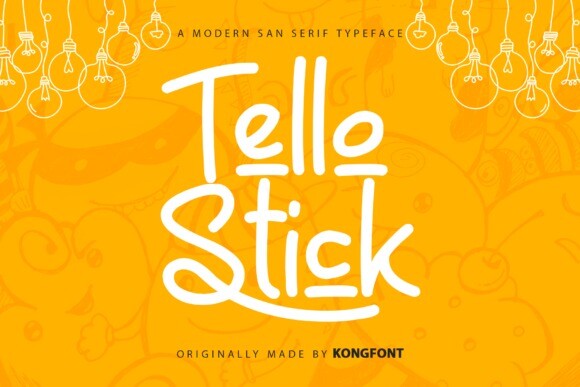
Tello Stick Font
Tello Stick Font is a modern and playful handwritten script font. It’s great for crafters and designers. It looks stunning on wedding invitations, thank you cards, quotes, greeting cards, logos, business cards and every other design which needs a handwritten touch.